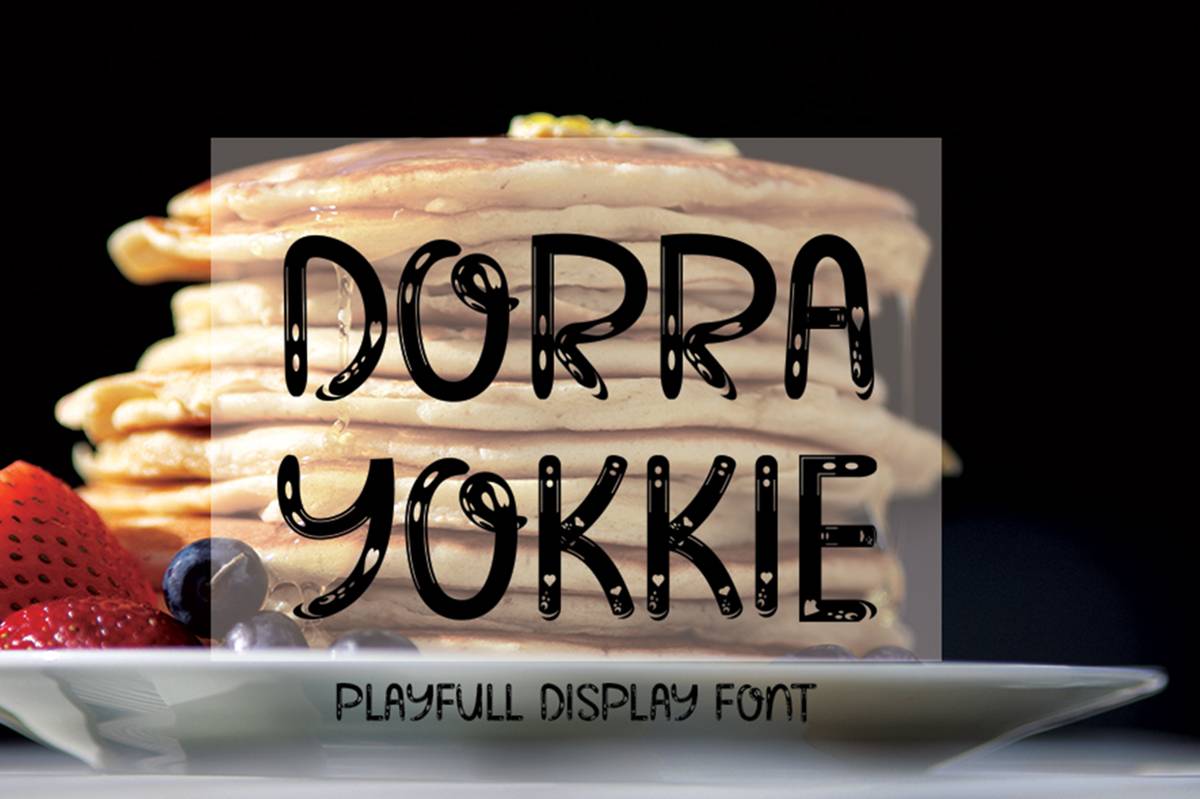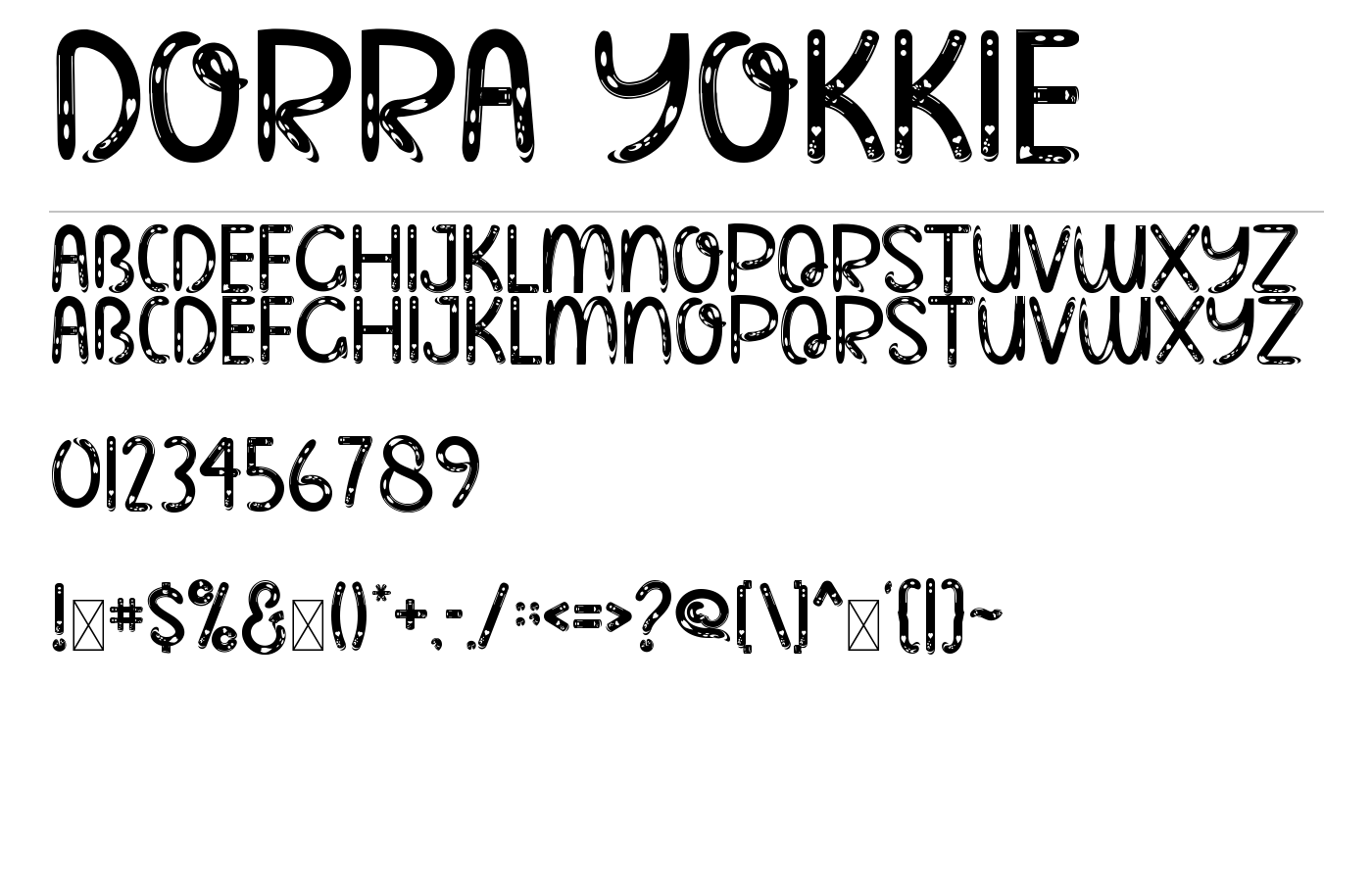
Dorra Yokkie is a playful and quirky sans serif font with irregular, hand-drawn letterforms decorated with unique dot and dash patterns, giving it a fun and creative vibe. Its casual style and irregular shapes make it perfect for children’s books, informal branding, or any design that wants to feel lively and approachable. This font works best in headlines and display use where personality and charm are key.
Dorra Yokkie Font
About Dorra Yokkie Font